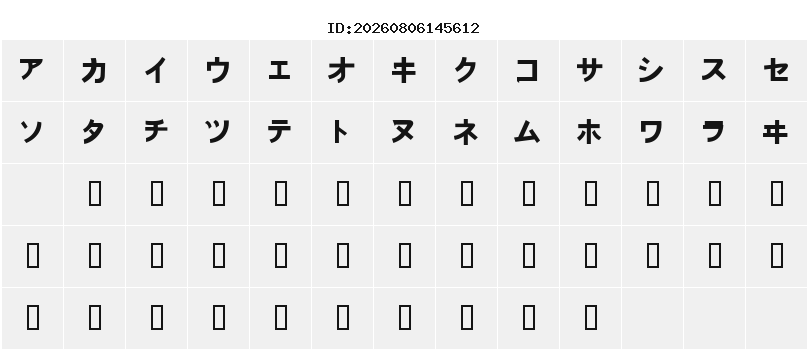
• Font Name: Onaka
• Full Font Name: Onaka normal
• Character Count: 28
About Onaka.ttf
Onaka.ttf is a modern, elegant sans-serif font designed for ultimate readability and visual harmony. Perfect for branding, headlines, web design, and print materials.